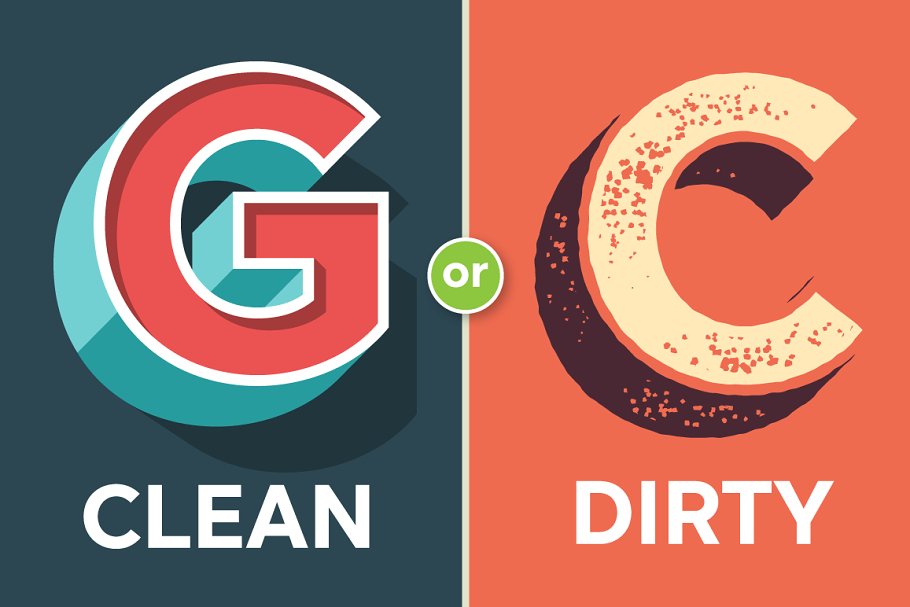
Introducing the Versatile 14 Layered Font Combo Pack - the ultimate font collection that will take your design game to the next level! Created by the talented Charles Borges de Oliveira, this sans serif font family is the perfect addition to any designer's toolbox.
Are you looking for the best fonts for large signs? Look no further! Versatile Bold and Versatile Rust are included in this package, making it ideal for sign makers, Cricut and Silhouette users, and anyone who uses a vinyl plotter. With its different layers, you can stack multi-colored vinyl to create unique signs and displays.
But that's not all! Versatile is also perfect for advertising and packaging, logo and branding design, poster and billboards, signage, as well as web and screen design. With over 1,462 glyphs (characters) in each font and support for over 200 languages including Cyrillic, Bulgarian Cyrillic, and Greek, the possibilities are endless.
Get creative with the massive library of Latin, Extended Latin, and Cyrillic alternates, diacritic and small cap counterparts, superscripts, subscripts, numerators, denominators, and scientific inferiors. And if that wasn't enough, you also get extended currency symbols including Bitcoin, a fun assortment of speech bubbles, and unlimited fractions.